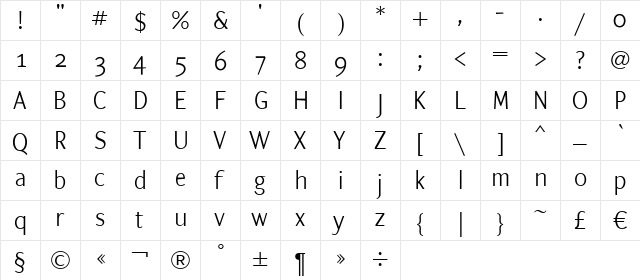
ArtemiusSans SN Light Regular
| Foundry | Letterhead studio especially for ArtLebedev Group. Created by Yuri Gordon |
Design Context for ArtemiusSans SN Light Typeface
ArtemiusSans SN Light takes a measured approach to typography — its balanced proportions and neutral character make it a reliable workhorse for both digital and print work. Its slender proportions lend an understated elegance to any composition.